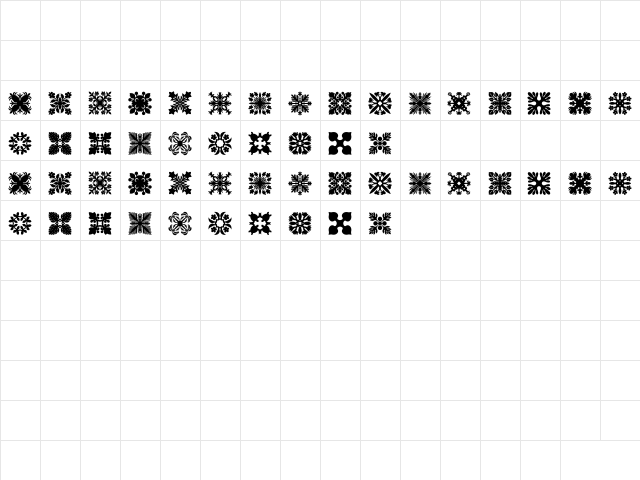
Hawaiian Quilt2 Regular
Design Context for Hawaiian Quilt2 Typeface
Hawaiian Quilt2 is a composed and adaptable typeface that performs quietly and consistently across a wide range of design contexts.